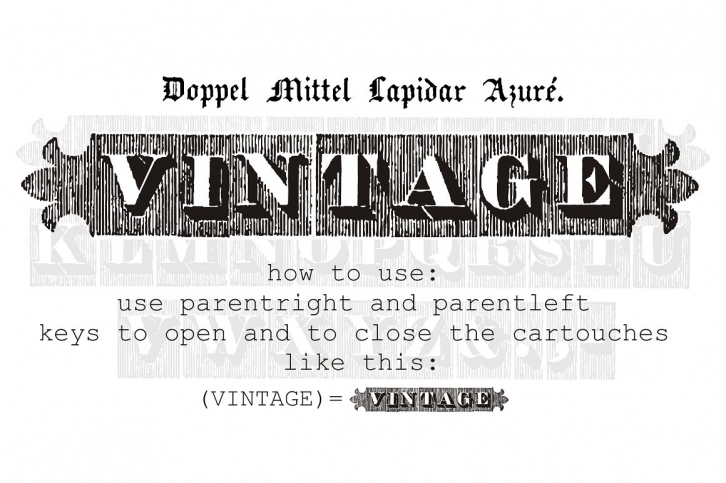
Doppel Mittel Lapidar Azuru00c3u00a9 is a beautiful font that was designed by Intellecta Design. It's a great choice for designers and creatives who need such a font. It was released on November 11, 2017 and the file size is 1.8 MB. Doppel Mittel Lapidar Azuru00c3u00a9 may give a more youthful, expressive and casual look to your project. It is a very beautiful, refined, elegant, and high-quality font.